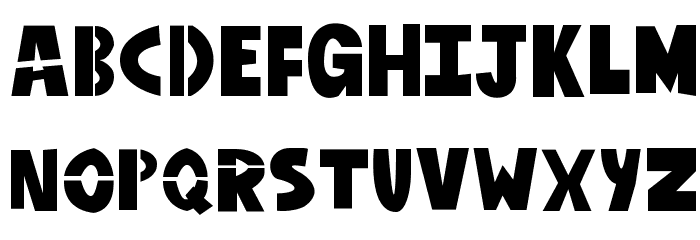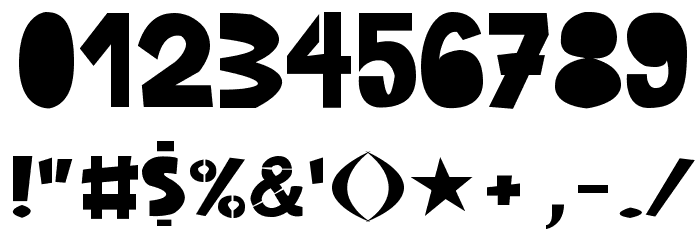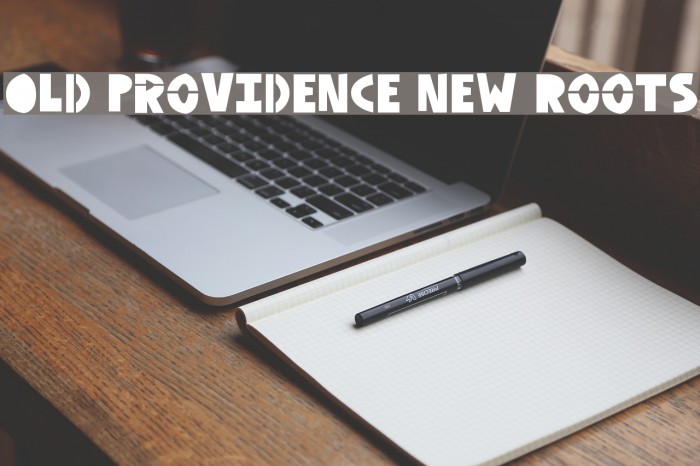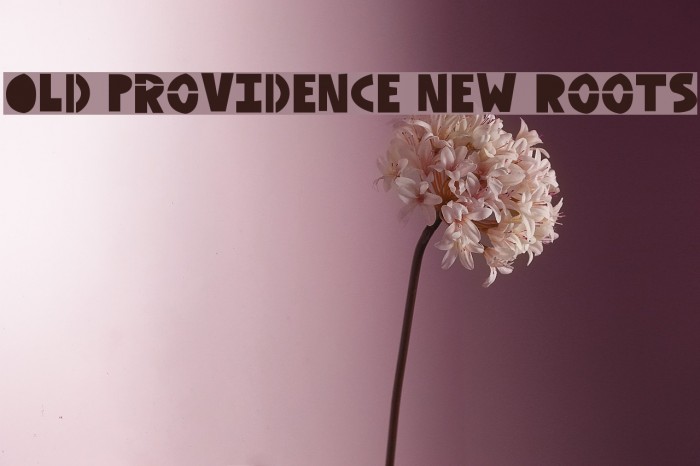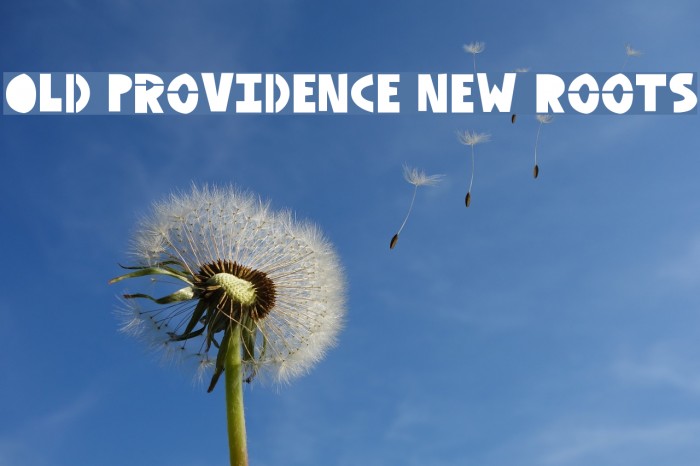
Old Providence New Roots Font
This font features a bold and striking design with a strong geometric influence. The characters are constructed with sharp angles and distinct cuts, creating a dynamic and eye-catching appearance. The uppercase letters are particularly bold, with a heavy weight that commands attention. The numbers and special characters maintain this boldness, ensuring consistency throughout the font. The unique style of the font makes it ideal for projects that require a strong visual impact, such as posters, headlines, and branding materials. Its decorative nature adds a modern twist to traditional bold fonts, making it versatile for various creative applications.
A bold, geometric font with sharp angles and a striking appearance.
- Proposed Projects: Ideal for posters, headlines, branding, and any project needing a strong visual impact.